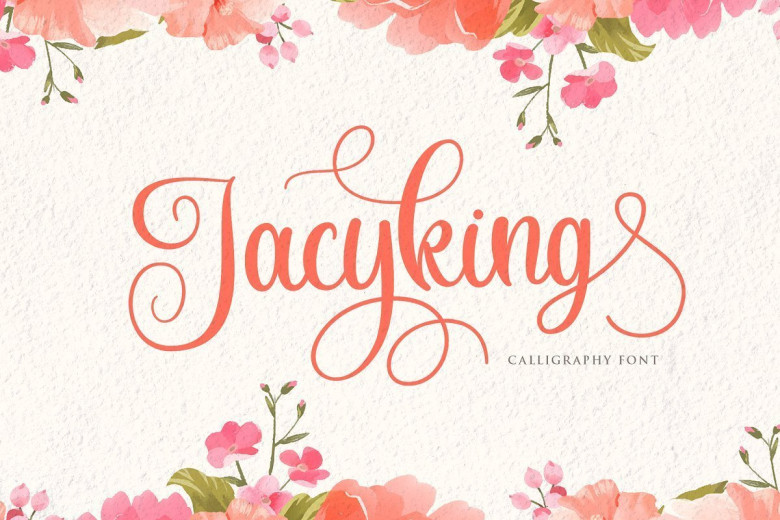
Jacyking Lovely Calligraphy Script Font
Jacyking Script Font is a stylish calligraphy typeface that features a varying baseline, smooth line, classic and elegant touch. Can be used for various purposes, such as headings, signature, logos, wedding invitation, t-shirt, letterhead, signage, lable, news, posters, badges etc.